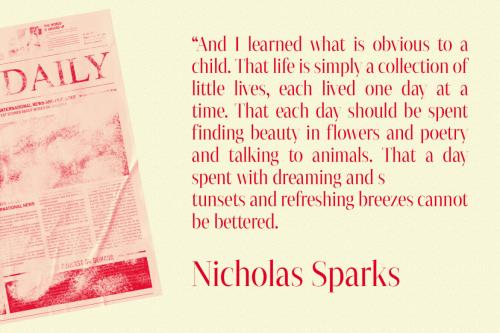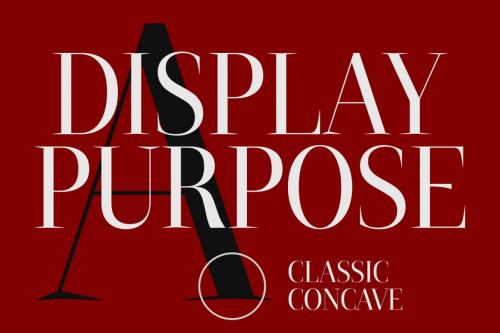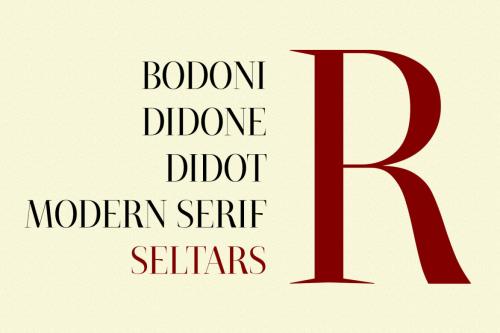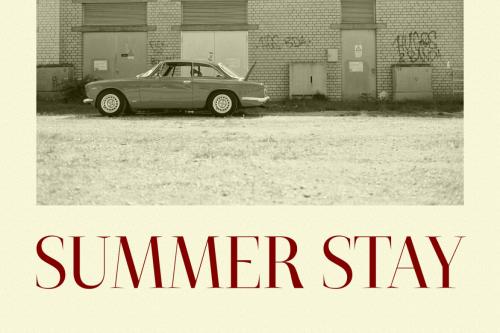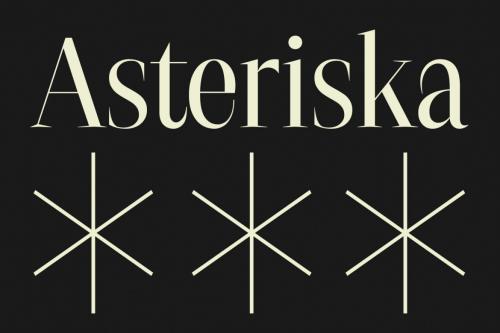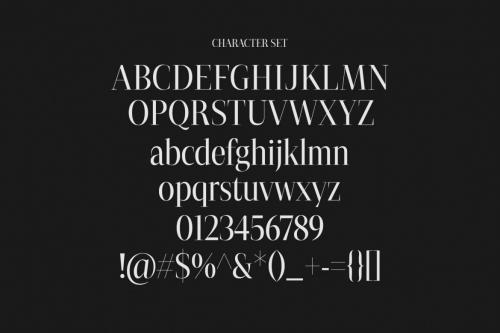
Seltars is a modern display serif font. High Regular Contrast stroke, fun character with a bit of ligatures and alternates. To give you an extra creative work. Seltars font support multilingual more than 100+ language. This font is good for logo design, Social media, Movie Titles, Books Titles, a short text even a long text letter and good for your secondary text font with script or serif. Make a stunning work with Seltars font.